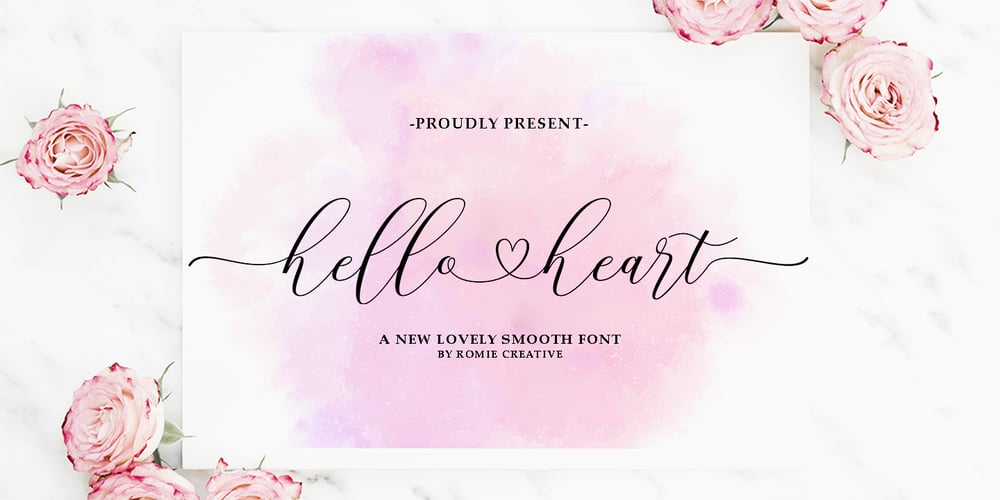
Hello Heart Font Family was designed by Romi Rahmadi and published by Romie Creative. Hello Heart contains 1 styles and family package options. Hello Heart Script is an elegant calligraphy font, designed to convey elegance and style. It’s sleek, feminine and friendly, this font is casual and pretty with crap. Can be used for various purposes. such as logos, product packaging, wedding invitations, branding, headlines, signage, labels, signatures, book covers, posters, quotes, and others.Hello Heart Script features an OpenType style of alternative styles, ties and international support for most Western languages including. To activate the OpenType Stylistic alternative, you need a program that supports OpenType features such as Adobe Illustrator CS, Adobe Indesign & CorelDraw X6-X7, Microsoft Word 2010 or newer versions.How to access all alternative characters using Adobe Illustrator:https://www.youtube.com/watch?v=XzwjMkbB-wQHello Heart Script is encoded with Unicode PUA, which allows full access to all additional characters without having special design software. Mac users can use Letter Books, and Windows users can use Character Maps to view and copy any of the additional characters to paste into your favorite text editor / application.How to access all alternative characters, using Windows Character Map with Photoshop:https://www.youtube.com/watch?v=Go9vacoYmBwIf you need help or have questions, let me know. I am happy to help :)Thank you & Happy Designing!